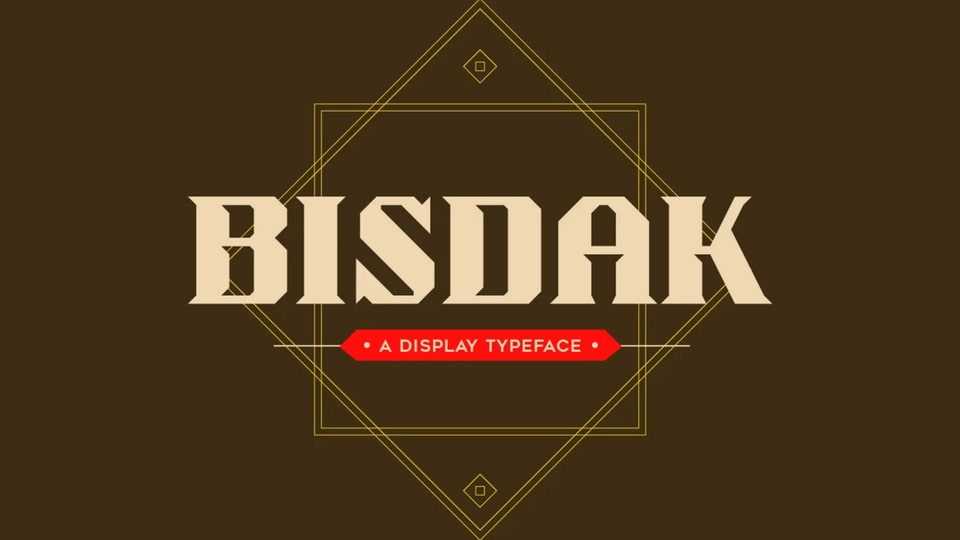
Download Bisdak font, a bold display typeface inspired by Cebu City and the Cebuano language. Bisdak is crafted to use for posters, titles, and headlines.
Designer: Diane Diana